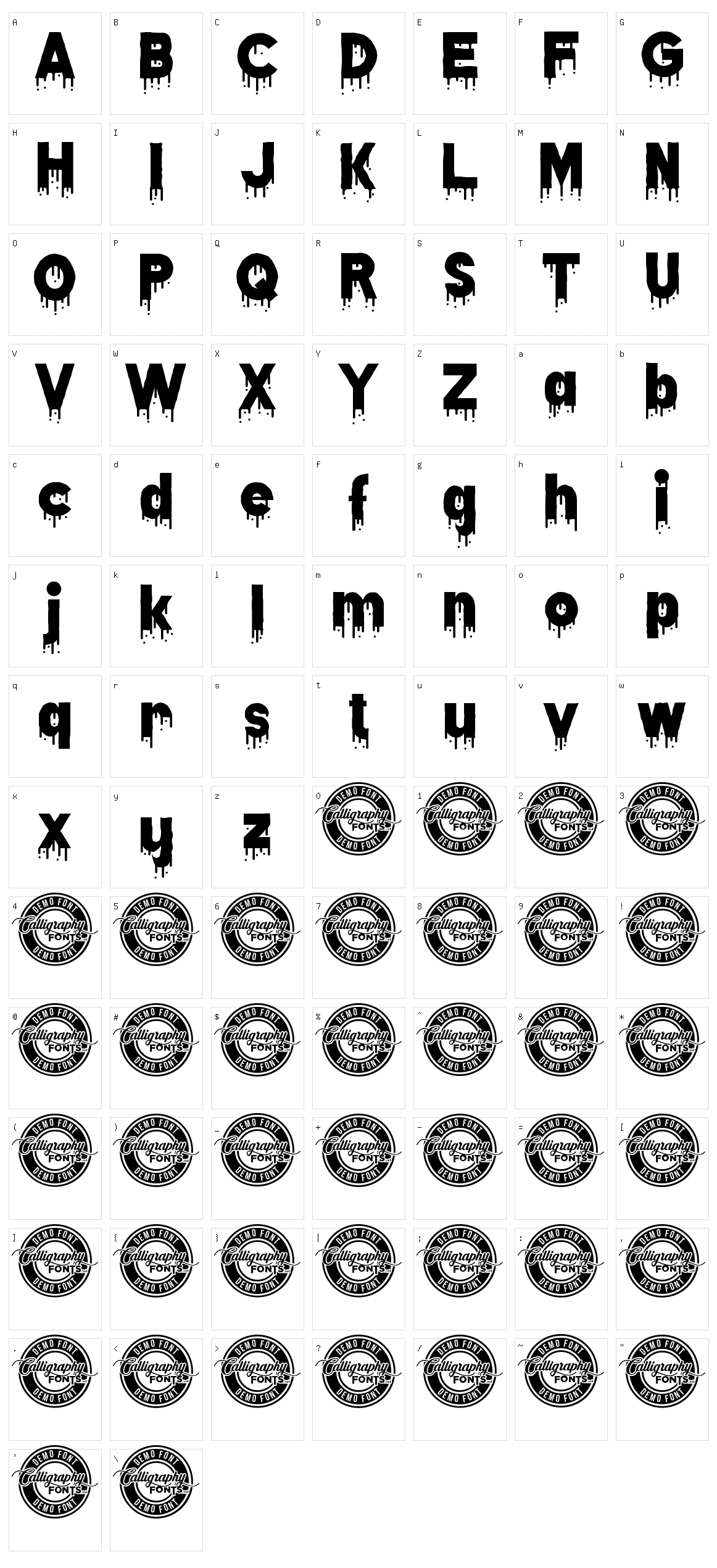
The free font Dripped Ink is carefully designed by Calligraphy Fonts, showcasing a thoughtful balance of creativity and usability and falls under the Horror font style. When you download the ZIP file, it contains only 112.88 KB of font files, making it lightweight and quick to download. Please review the license details below to understand permitted usage and distribution rights. If license information is not available, we recommend using this font for personal projects only or contacting the author directly for commercial usage permissions.